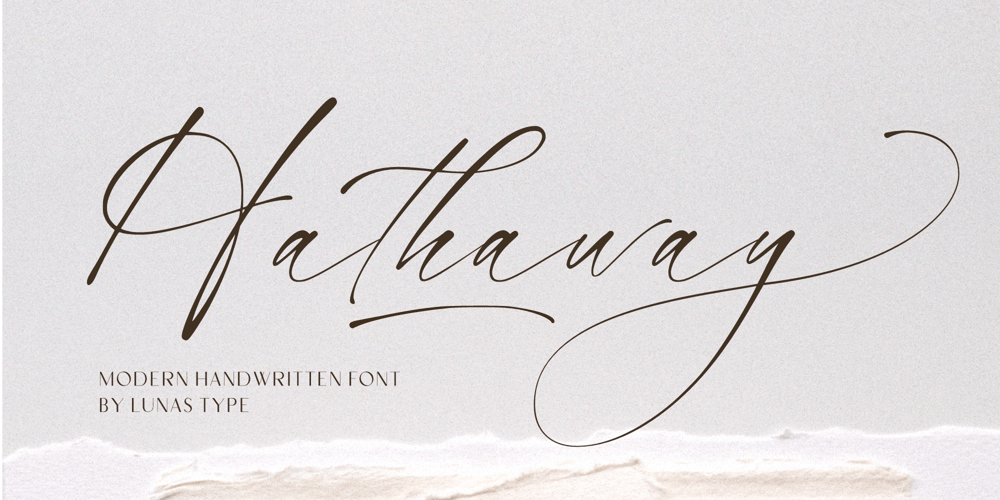
Hathaway Font Family was designed by Annas Alam Yahya and published by Lunas Type. Hathaway contains 1 styles and family package options. Introducing, Hathaway!Hathaway is a modern and stylish handwritten font.With natural flow it can add a human touch to your designs.Hathaway is perfect for many design needs such as merch, T-shirts, titles, wedding, book covers, social media posts, websites, events, and many more.What’s you get :- Ending Swashes- Underline Swashes (just type _1, _2, etc)- Numeral & Punctuation.- ligature.- Multilingual Support.Enjoy Designing!Thanks!Lunas Type